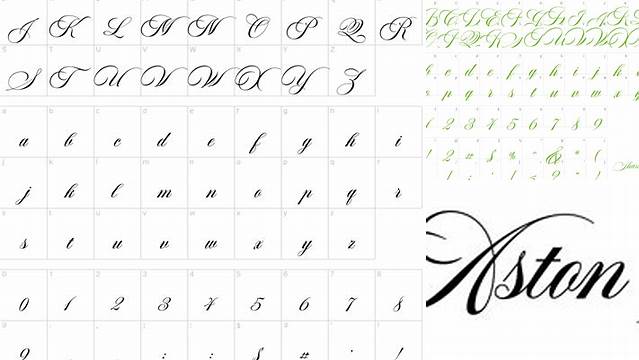
Aston Script Pro: Free Font Download & Usage Guide
Hey guys! Looking for that perfect free font to add a touch of elegance to your next project? Look no further! We're diving deep into the world of Aston Script Pro Normal Regular, a font that's been making waves in the design community. Whether you're a seasoned designer or just starting, this guide will give you everything you need to know about this beautiful typeface, from where to download it to how to use it effectively. So, let's get started!
1. What is Aston Script Pro?
Aston Script Pro Normal Regular is more than just a font; it's a work of art. It boasts a flowing, calligraphic style that's perfect for adding a touch of sophistication to any design. Think wedding invitations, logos, branding materials, and even website headers! This free font is incredibly versatile, making it a favorite among designers across various industries. The beauty of Aston Script Pro lies in its elegant curves and smooth lines, which give it a handwritten feel. This makes it ideal for projects where you want to evoke a sense of warmth, personality, and authenticity. Forget those generic, blocky fonts β Aston Script Pro is here to make a statement!
2. Key Features of Aston Script Pro
What makes Aston Script Pro stand out from the crowd? Well, a lot! First off, it's the smooth, flowing script that gives it such a distinctive look. The letterforms are beautifully crafted, with a natural, handwritten feel thatβs hard to replicate. This free font also comes with a range of glyphs and ligatures, allowing you to create even more unique and customized designs. Ligatures are those fancy little connections between letters, and they can add a real touch of elegance. Plus, Aston Script Pro is designed for readability, even at smaller sizes. This is crucial for ensuring your text is legible, no matter where it's used. So, whether you're designing a logo, a website, or a print ad, Aston Script Pro has you covered. We can confidently say that key features of this free font are its legibility and unique look.
30. Aston Script Pro: A Font for Timeless Elegance
In conclusion, Aston Script Pro Normal Regular is a fantastic free font that can add a touch of timeless elegance to your designs. Its flowing script style, versatility, and readability make it a valuable asset for any designer. Whether you're creating logos, invitations, websites, or branding materials, Aston Script Pro can help you achieve a sophisticated and polished look. So go ahead, download it, and start creating! Aston Script Pro is a valuable asset for any designer, adding timeless elegance and a sophisticated look to various projects.